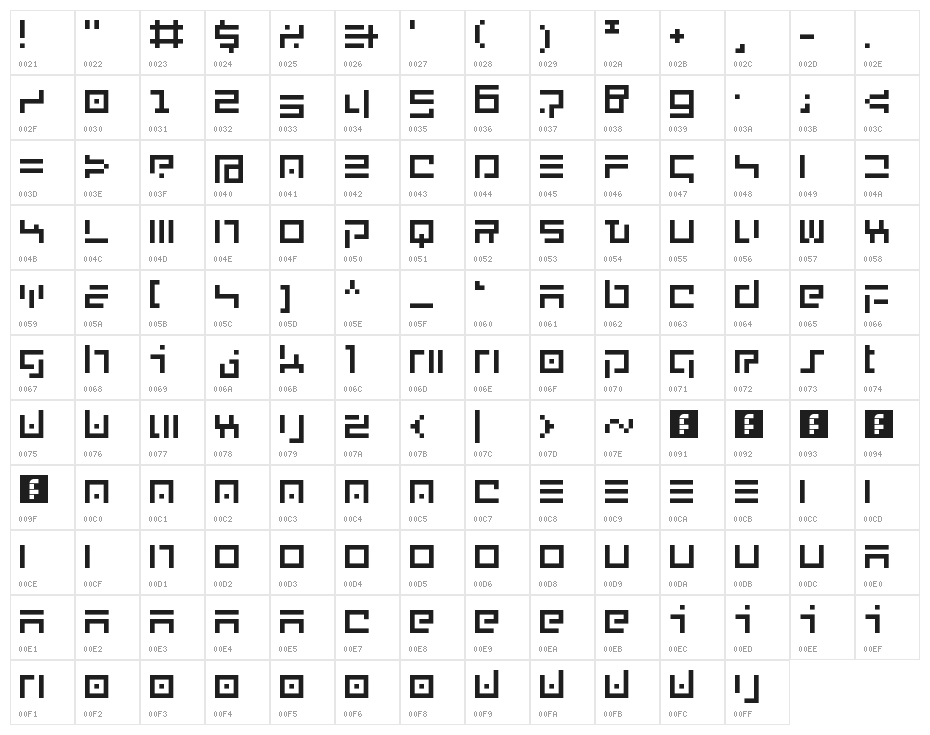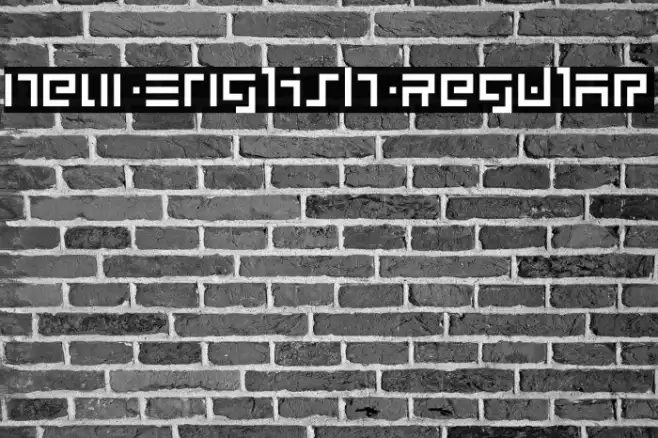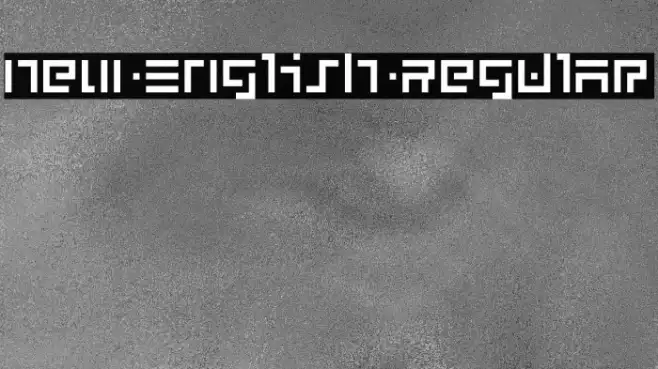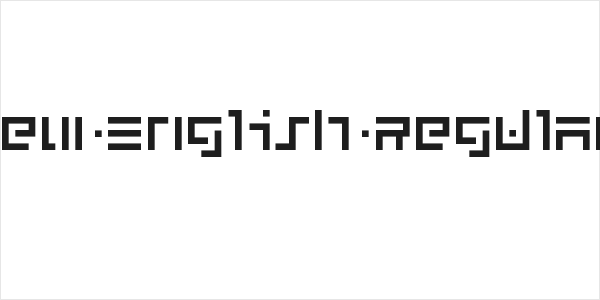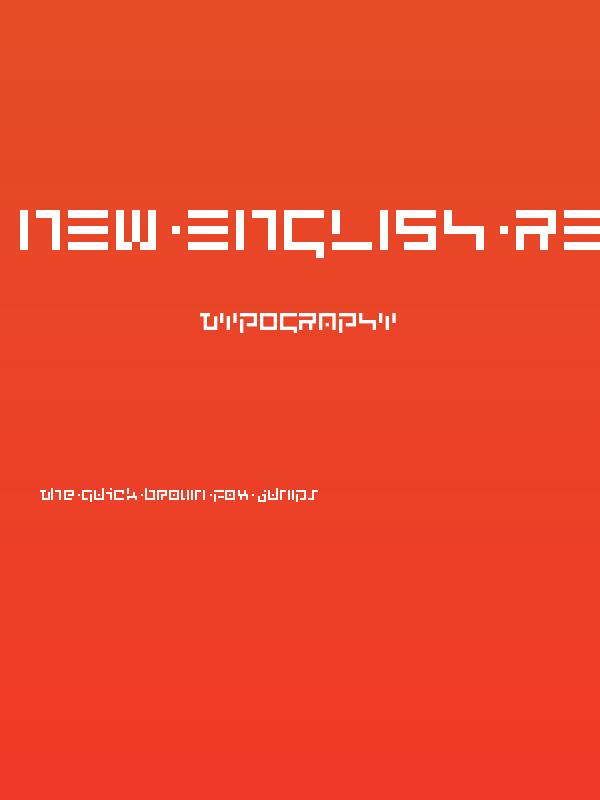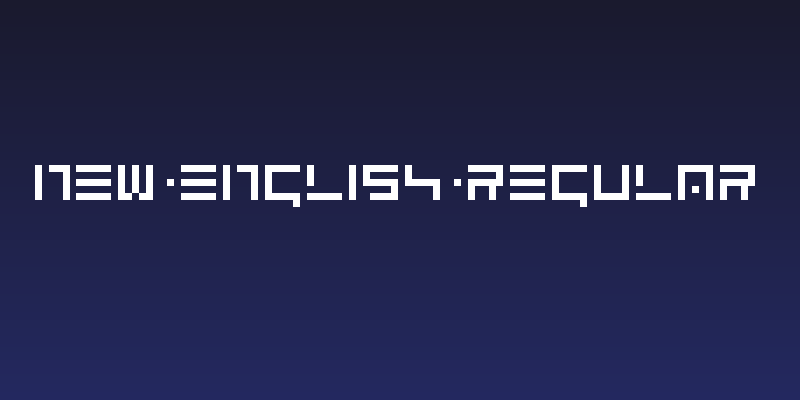
New English Regular Font
New English Regular Description
This font features a geometric and futuristic design, characterized by its blocky and angular letterforms. The characters are constructed with consistent stroke widths, giving it a uniform appearance. The uppercase and lowercase letters share similar structural elements, enhancing the cohesive look. The numerals and special characters maintain the same stylistic approach, ensuring a seamless integration across all glyphs. This font's style is reminiscent of digital or technological themes, making it suitable for modern and innovative design projects.
| Use Case | Logos, Headlines, Digital interfaces |
| Proposed Projects | Ideal for technology branding, video game interfaces, sci-fi themed posters, and digital media. |